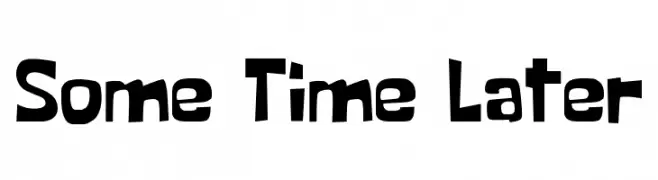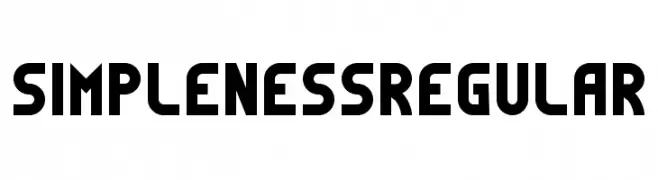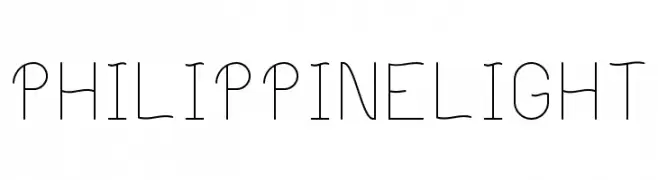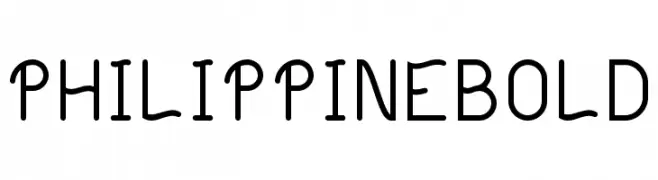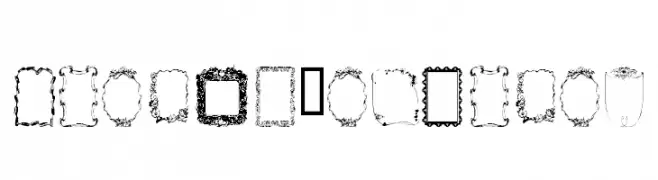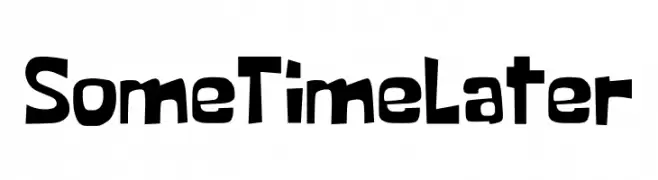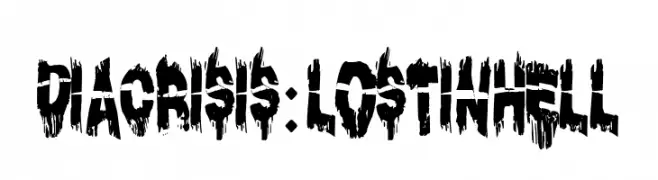
( Fonts by Fredrick Brennan )
A bold, playful font with irregular, hand-drawn characteristics.
( modblackmoon.narod.ru/ )
An edgy, thorn-like font with a chaotic and aggressive style.
( Fonts by Valentin François )
A bold, geometric font with a modern and clean design.
( Valentin François - www.valentinfrancois.fr )
A clean, modern font with a playful touch and consistent stroke width.
( Valentin François - www.valentinfrancois.fr )
A minimalist, modern font with thin lines and geometric structure.
( Valentin François - www.valentinfrancois.fr )
A playful, modern font with rounded edges and a hand-drawn feel.
( Dingbat Crazy - dingbatcrazy.fateback.com/ )
A diverse set of decorative and plain frame glyphs.
( Fonts by Fredrick Brennan )
A playful, bold font with a hand-drawn, quirky style.
A distressed, grungy font with jagged edges and an intense, chaotic style.